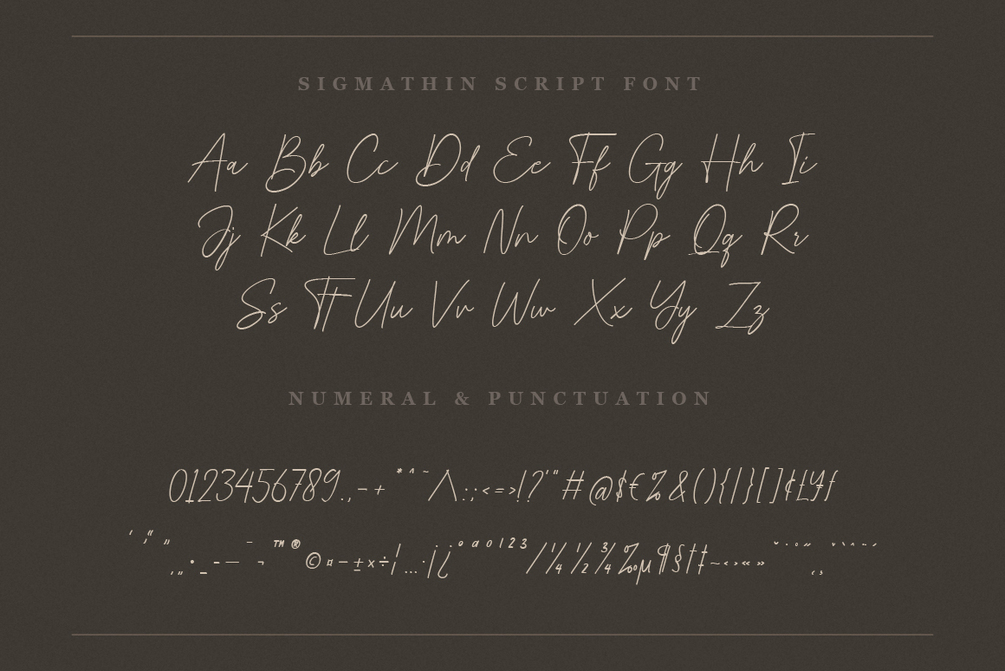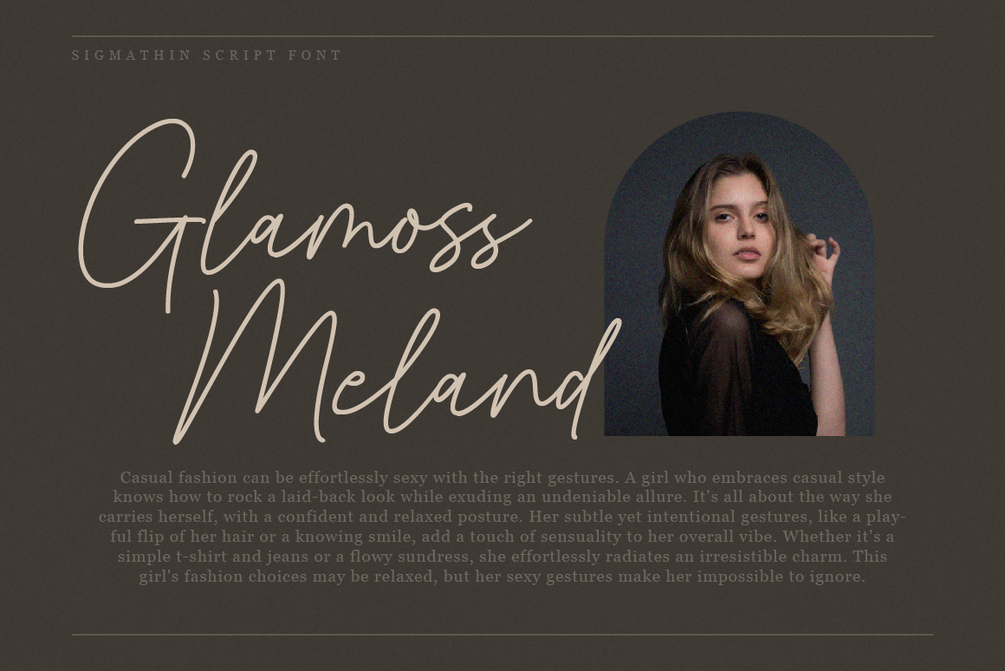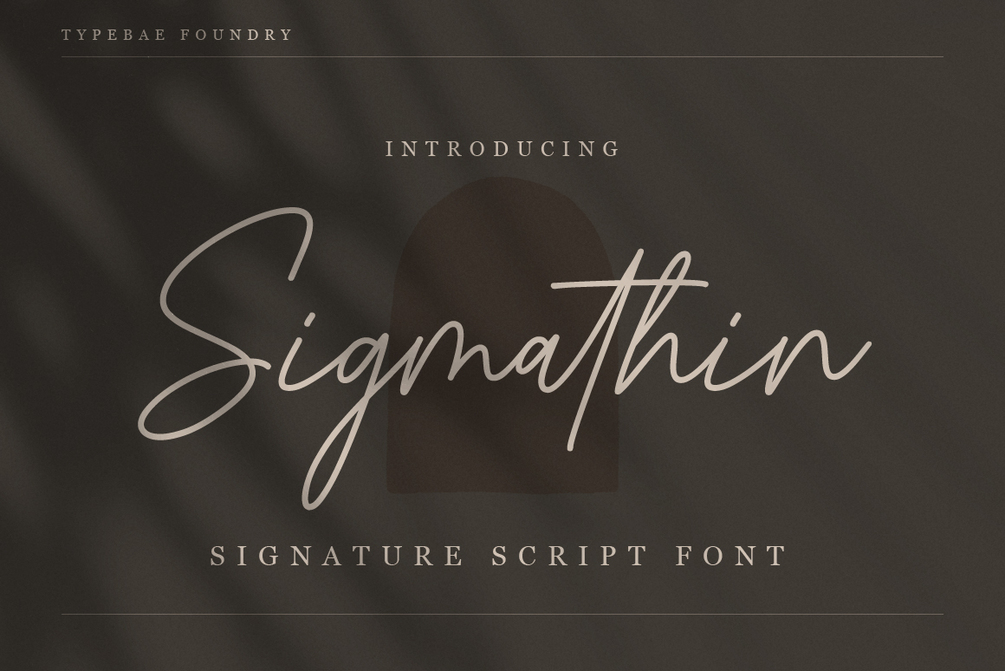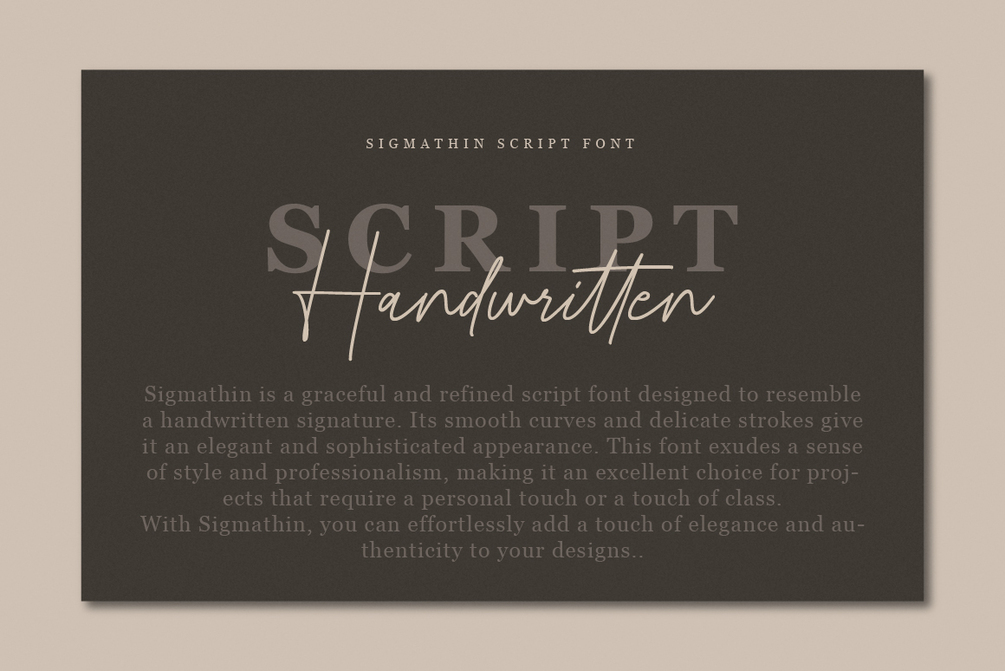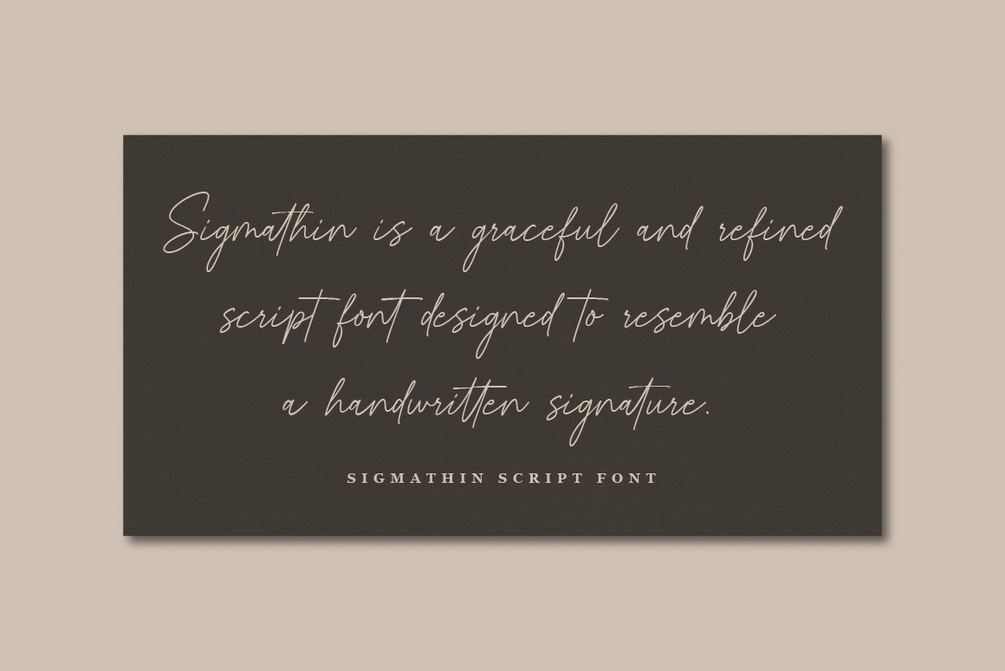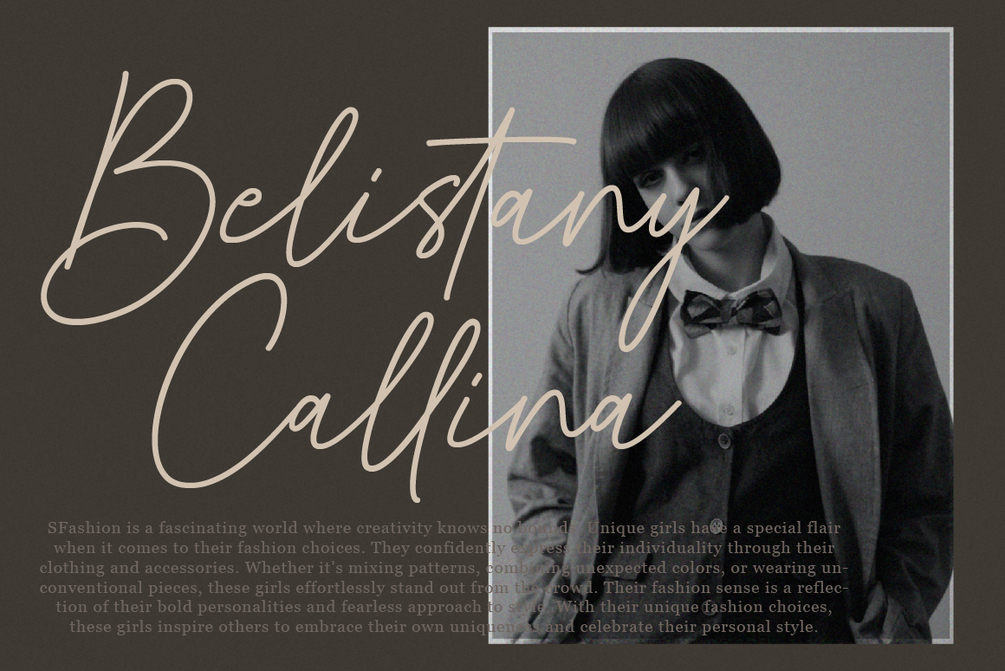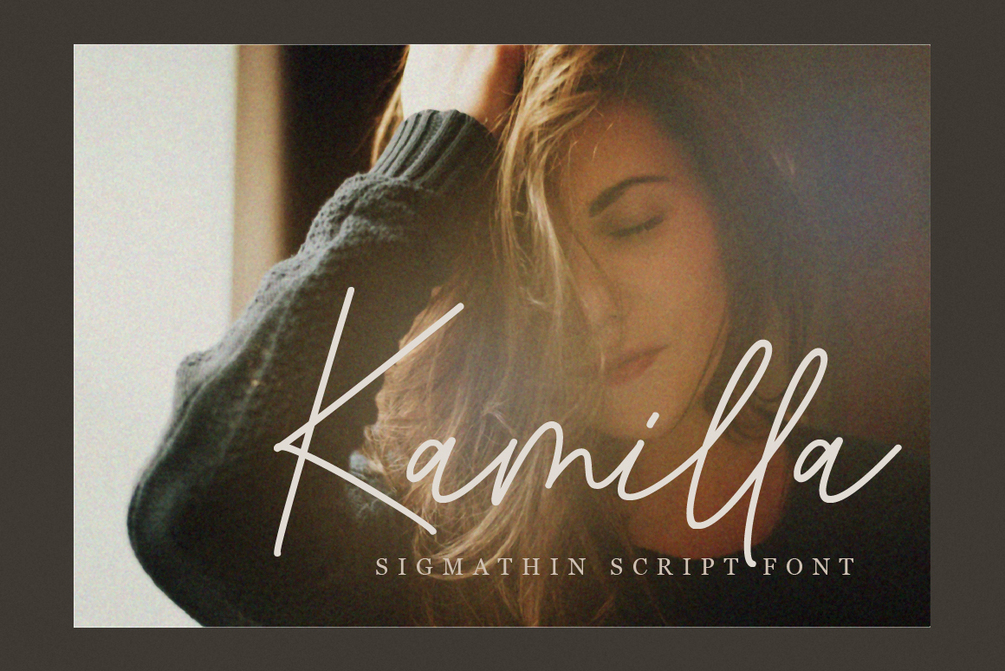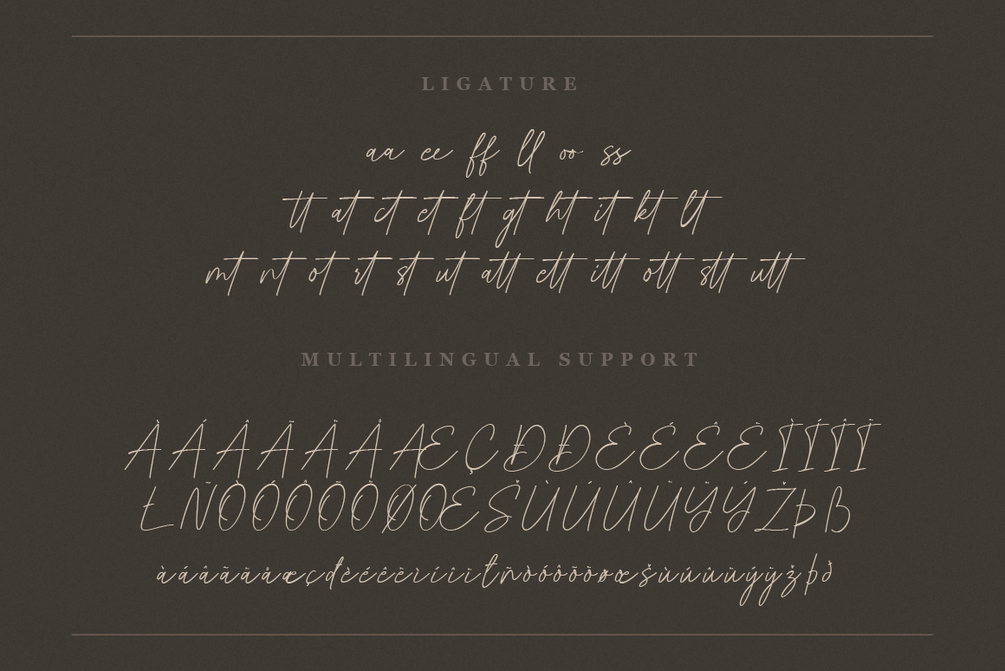
Sigmathin
Sigmathin is a graceful and refined script font designed to resemble a handwritten signature. Its smooth curves and delicate strokes give it an elegant and sophisticated appearance. This font exudes a sense of style and professionalism, making it an excellent choice for projects that require a personal touch or a touch of class.
• Standard alphabet and punctuation
• Ligature feature
• Multilingual Support: Afrikaans, Basque, Breton, Catalan, Danish, Dutch, English, Finnish, French, Gaelic (Irish, Scots), German, Icelandic, Indonesian, Irish, Italian, Norwegian, Portuguese, Saami (Southern), Spanish, Swahili, Swedish.